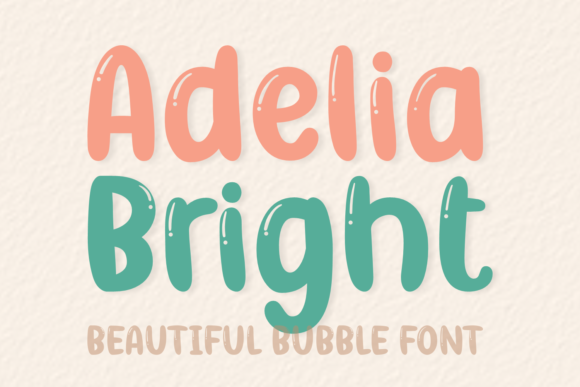
Welcome to the world of Adelia Bright Font, one of the Best Fonts for Display Ads in the market. This display font, created by Creative Fabrica Fonts, is designed to catch your attention and make your projects stand out.
Adelia Bright Font is not your typical font; it is a spirited and lovable font that adds personality to your projects. The small marks on each glyph enhance the true nature of bubble letters and make them even more adorable. Whether you are designing invitations, creating logos, or making social media posts, Adelia Bright Font will help you achieve the perfect look.
This font is also incredibly versatile and can be used for a variety of purposes. It is perfect for kid's activities, school projects, and even birthday cards. You can also use it for print designs, product packaging, and so much more! The possibilities are endless, and Adelia Bright Font is here to help you bring your creative ideas to life.
In addition to its versatility, Adelia Bright Font is easy to use and customize. With its smooth and seamless design, you can create stunning designs in no time. You can also mix and match different styles and colors to make your projects even more unique.